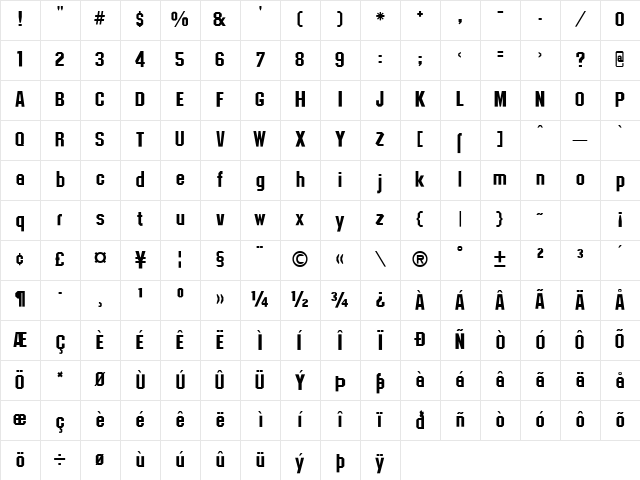
College Solid Regular Free Font
College Solid Regular
Design Context for College Solid
College Solid brings high-energy athletic personality to the page - its confident, muscular forms are built for impact.
Pro Tip: Use College Solid in all-caps headlines where its athletic energy can fully express itself. Pair with a solid, simple sans for supporting text.